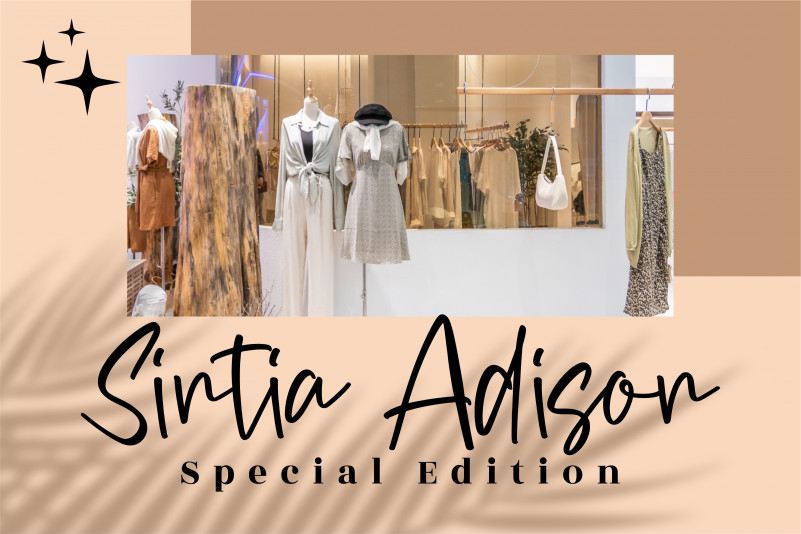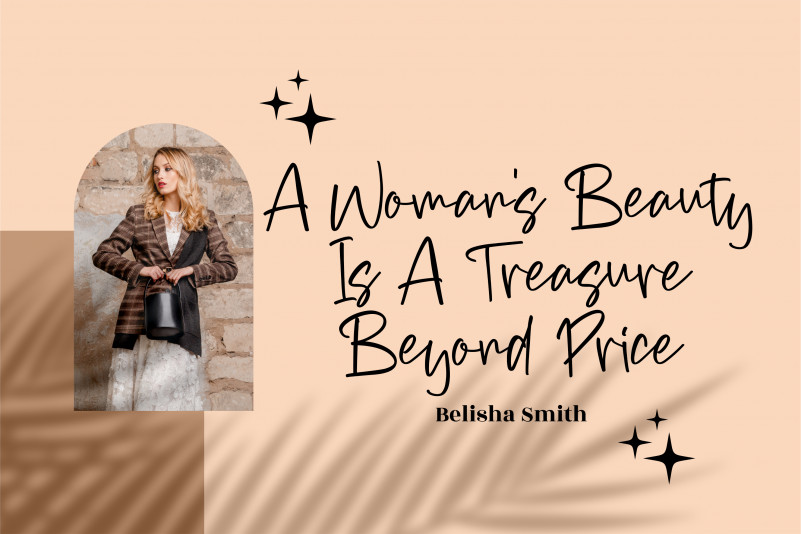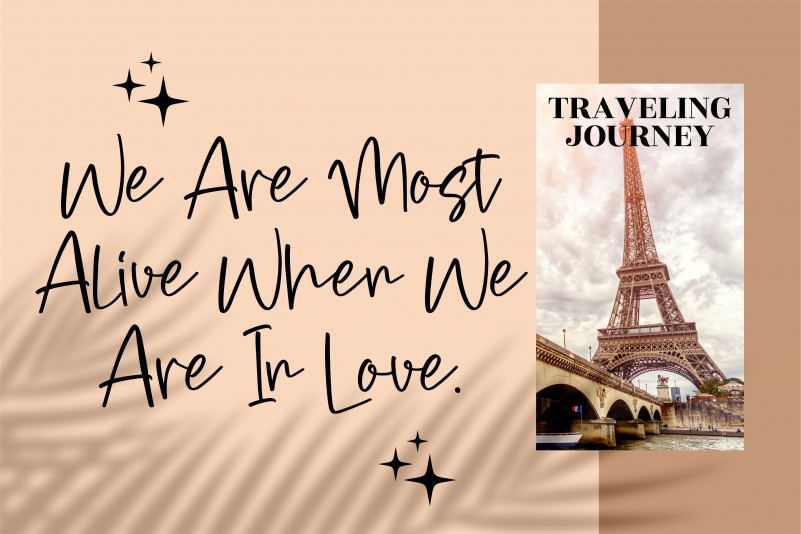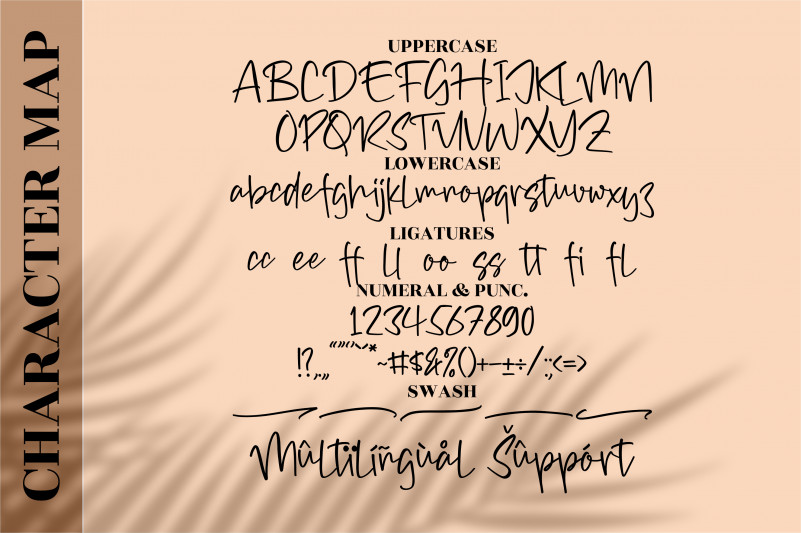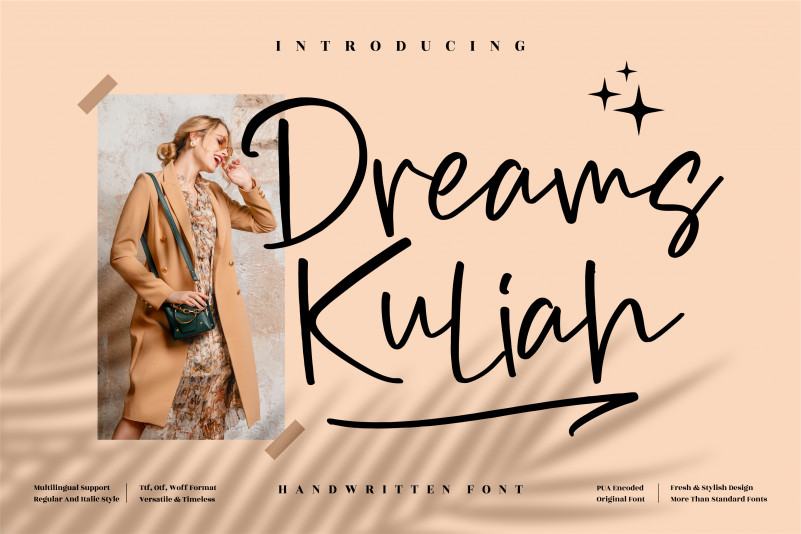
Dreams Kuliah Font
Dreams Kuliah Script Font
It’s a handwritten font, suitable for any projects such as: logos, branding projects, homeware designs, product packaging, mugs, quotes, posters, shopping bags, t-shirts, book covers, name card, invitation cards, greeting cards, label, photography, watermark, special events, and all your other luxury projects that need a handwritten taste.